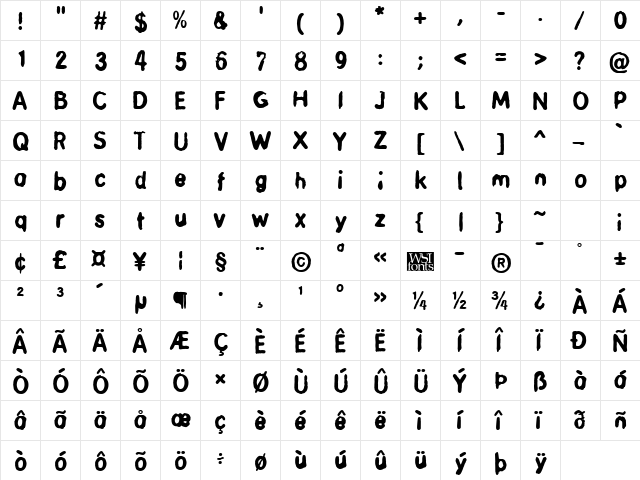
VagabondRough Regular
Design Context for VagabondRough Typeface
VagabondRough embraces imperfection — its rough, textured character adds raw authenticity to designs that want to feel lived-in and unconventional.
A strong fit for alternative music projects, graffiti-adjacent design, and anything that deliberately resists polish.
Pro Tip: Use VagabondRough at larger sizes where the texture and irregularity of each letterform can be clearly seen — it loses its character at small sizes.